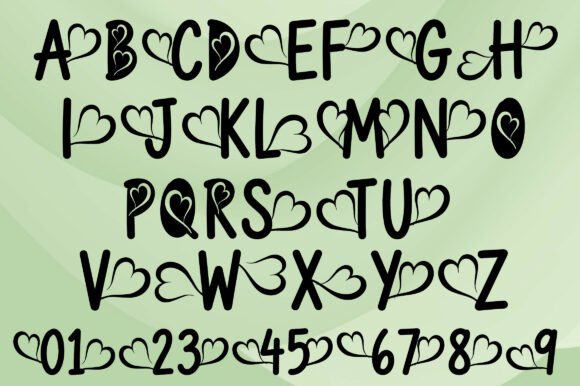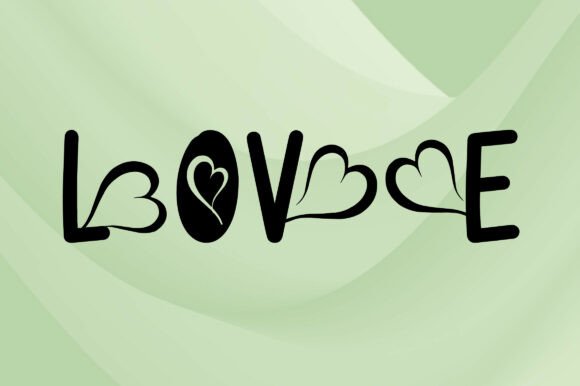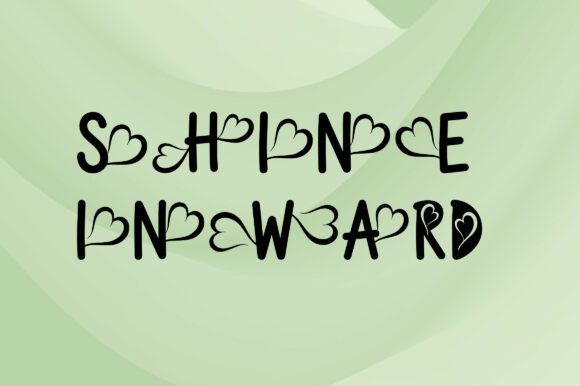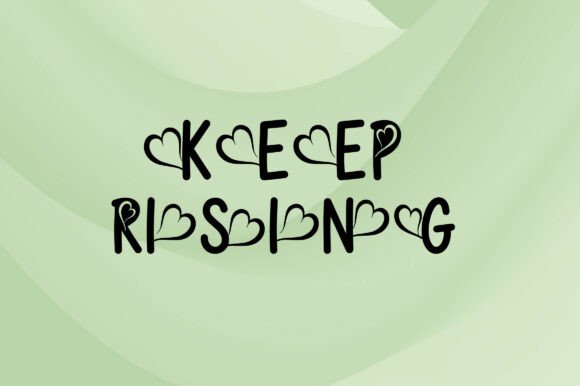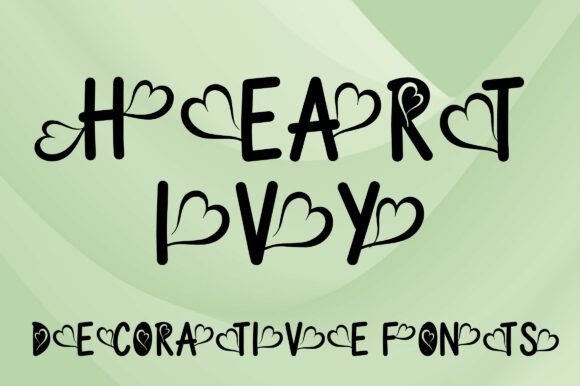
Introducing Heart Ivy Font: The Sweetest Decorative Display Font for Your Romantic Projects
Are you looking for a font that exudes love, warmth, and playfulness? Look no further than Heart Ivy Font, a beautiful decorative display font that is perfect for designers and crafters who want to add a touch of romance to their projects. With its unique blend of bold black strokes, smooth curves, heart-shaped details, and flowing vine-like accents, Heart Ivy is sure to capture the hearts of your audience.
The Charm of Heart Ivy Font
Heart Ivy Font is a sweet and charming typeface that is designed to bring a sense of warmth and love to your designs. Its uppercase letterforms feature bold black strokes that give it a sturdy and confident look, while the smooth curves and heart-shaped details add a touch of playfulness and whimsy. The flowing vine-like accents that connect the letters create a sense of movement and fluidity, making it perfect for designs that need a dynamic and eye-catching look.
Perfect for Romantic Projects
Heart Ivy Font is perfect for a wide range of romantic projects, including Valentine’s Day designs, love quotes, wedding invitations, greeting cards, logos, branding, packaging, social media graphics, and creative projects that need a cute and heartfelt typeface. Whether you’re designing a romantic dinner invitation or a sweet Valentine’s Day card, Heart Ivy Font is sure to add a touch of love and warmth to your design.
Key Features of Heart Ivy Font
- Unique and eye-catching design: Heart Ivy Font features a unique blend of bold black strokes, smooth curves, heart-shaped details, and flowing vine-like accents that create a lovely and warm look.
- Perfect for romantic projects: Heart Ivy Font is designed specifically for romantic projects, including Valentine’s Day designs, love quotes, wedding invitations, and more.
- Playful and charming: Heart Ivy Font has a playful and charming personality that is sure to capture the hearts of your audience.
- Easy to read: Despite its decorative nature, Heart Ivy Font is easy to read and can be used for a wide range of design projects.
- Versatile: Heart Ivy Font can be used for a wide range of design projects, including logos, branding, packaging, social media graphics, and more.
Tips for Using Heart Ivy Font
Here are some tips for using Heart Ivy Font in your designs:
- Use it for headings and titles: Heart Ivy Font is perfect for headings and titles, where its bold and eye-catching design can really shine.
- Pair it with a simple font: To create a beautiful contrast, pair Heart Ivy Font with a simple font for body text.
- Experiment with colors: Heart Ivy Font looks great in a variety of colors, so don’t be afraid to experiment and find the perfect color for your design.
- Use it for digital and print designs: Heart Ivy Font can be used for both digital and print designs, making it a versatile addition to your font collection.
Heart Ivy Font is a beautiful and charming decorative display font that is perfect for designers and crafters who want to add a touch of romance to their projects. With its unique blend of bold black strokes, smooth curves, heart-shaped details, and flowing vine-like accents, Heart Ivy Font is sure to capture the hearts of your audience. Whether you’re designing a romantic dinner invitation or a sweet Valentine’s Day card, Heart Ivy Font is the perfect choice.